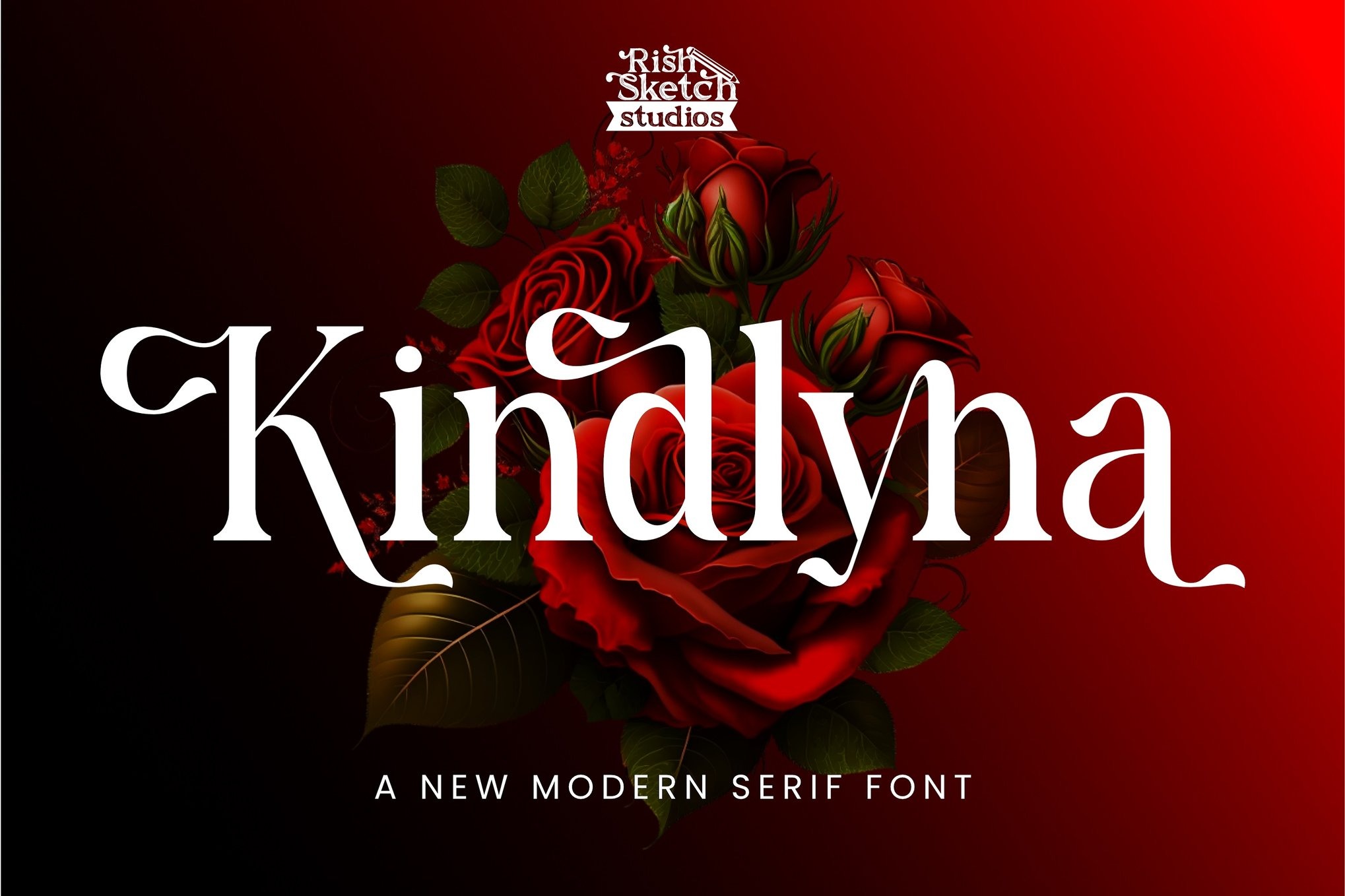
Kindlyna Font
Kindlyna Font is a stylish typeface that enhances visual appeal and works effortlessly in many design contexts. Kindlyna – Modern Serif Font, from Rishsketch Studios, is a premium Modern Serif Font, perfect for any project that requires a distinctive, and premium feel.